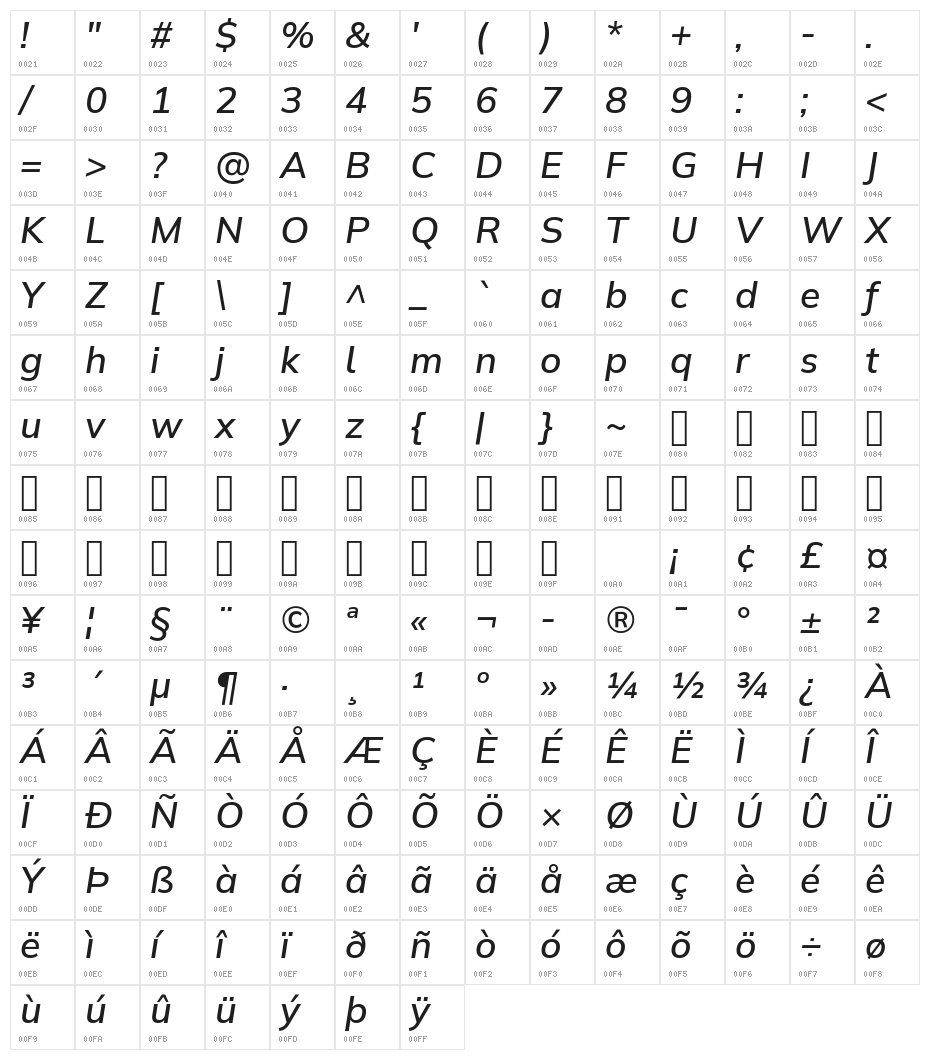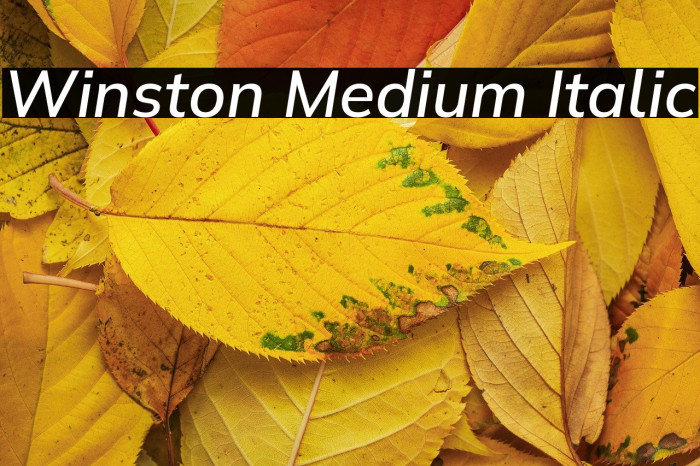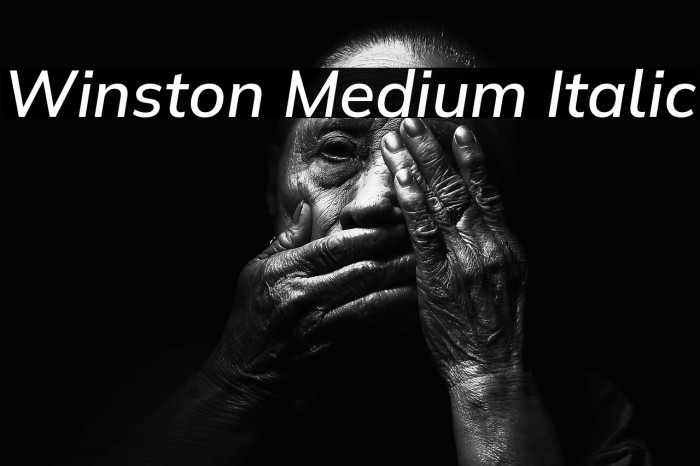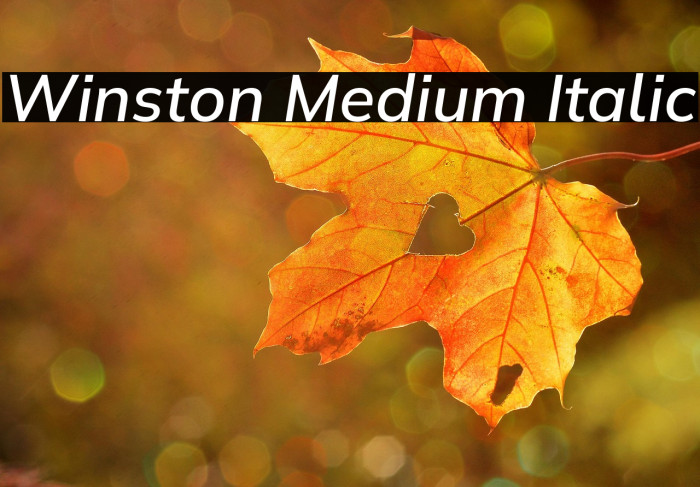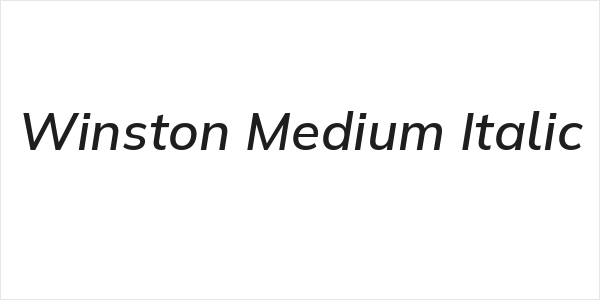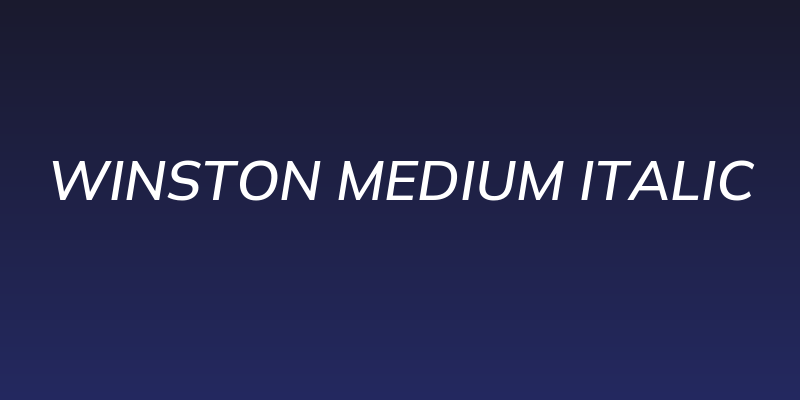
Winston Medium Italic Font
Winston Medium Italic Description
This font features a sleek and modern design with a subtle italic slant, giving it a dynamic and elegant appearance. The characters are well-proportioned, with smooth curves and clean lines that enhance readability. The uppercase letters are bold and commanding, while the lowercase letters maintain a consistent flow, making it suitable for both headlines and body text. The numerals are clear and distinct, ensuring easy legibility. Special characters are thoughtfully designed, maintaining the overall aesthetic of the font.